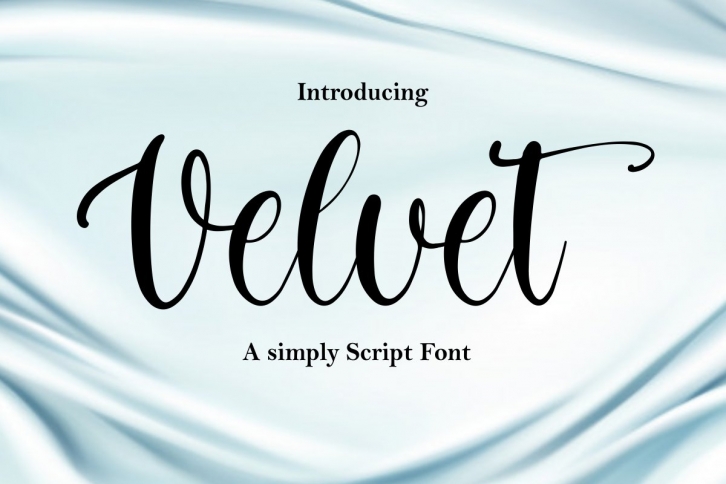
Velvet is a trendy and unique font with an authentic style. It was designed by fikryal and it's a great choice for creative people who need such a font. It was released on November 16, 2020 and the file size is 2.57 MB. Velvet will add an organic vibe to any design idea!